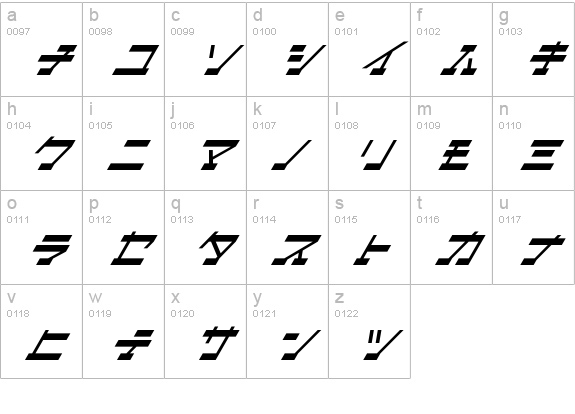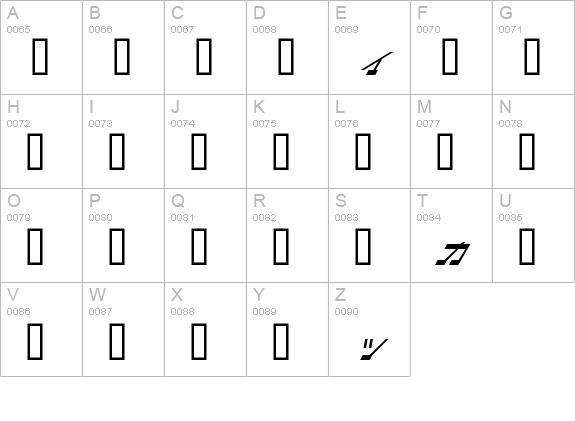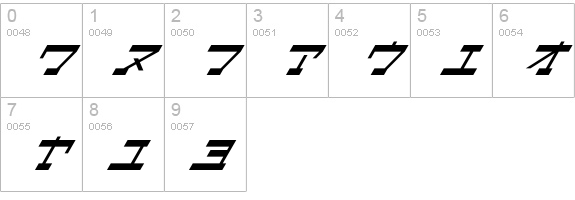
I2Arï¿¿ificialSaï¿¿elliï¿¿e Font Details
Introducing the stunning and versatile I2Arï¿¿ificialSaï¿¿elliï¿¿e font! This captivating typeface is the perfect blend of modernity and sophistication, making it a must-have for any design project. With its sleek and elegant letterforms, I2Arï¿¿ificialSaï¿¿elliï¿¿e font is sure to bring a touch of class to your designs. But what sets this font apart is not just its stunning aesthetics, it's also the fact that it is available for free! That's right, this incredible font can be freely downloaded at FontsMarket.com, making it accessible to designers and enthusiasts alike. Whether you're working on a personal project or a professional design, I2Arï¿¿ificialSaï¿¿elliï¿¿e font is the perfect choice. The versatility of this font is truly remarkable. With multiple weights and styles to choose from, you'll have endless options to play with. Whether you're looking to create a bold headline or a delicate script, I2Arï¿¿ificialSaï¿¿elliï¿¿e font has got you covered. Not only does I2Arï¿¿ificialSaï¿¿elliï¿¿e font offer stunning aesthetics and versatility, but it also boasts excellent legibility. Its carefully crafted letterforms ensure that your message is conveyed effortlessly, whether it's in print or on-screen. So why wait? Download the I2Arï¿¿ificialSaï¿¿elliï¿¿e font for free at FontsMarket.com and unleash your creativity today. With its captivating style, versatility, and impeccable legibility, this font is sure to elevate your designs to new heights.